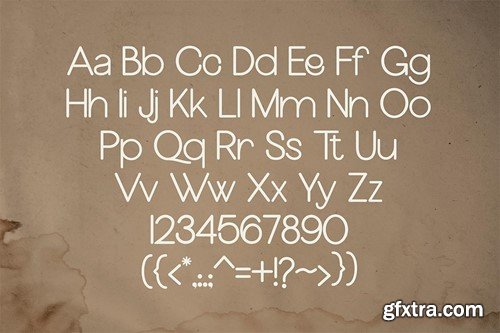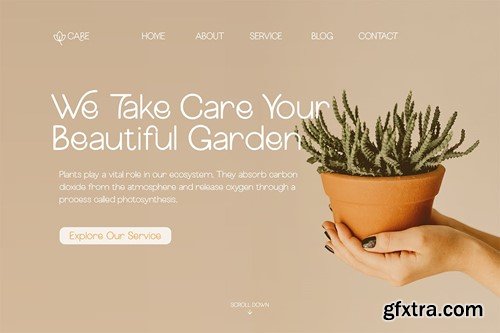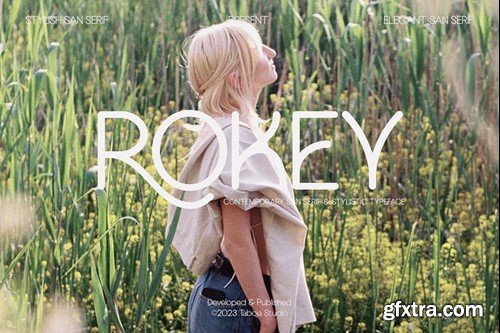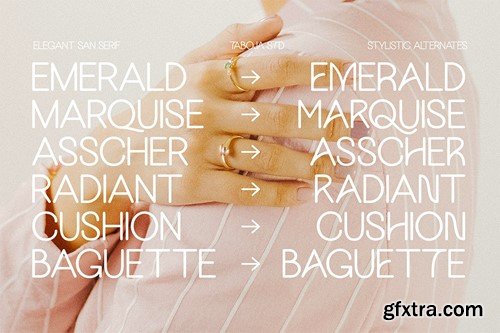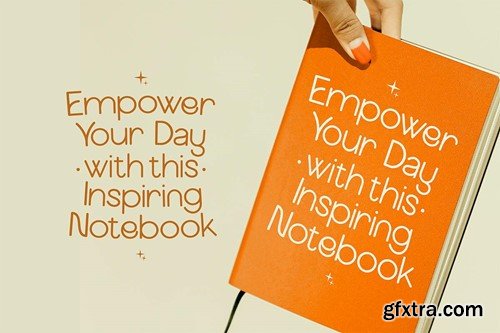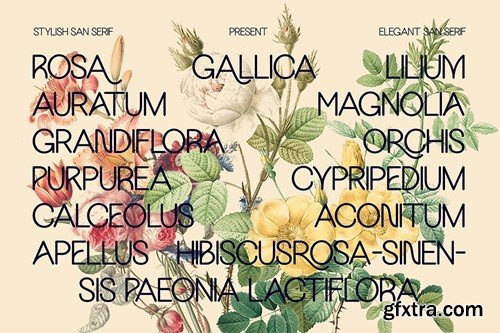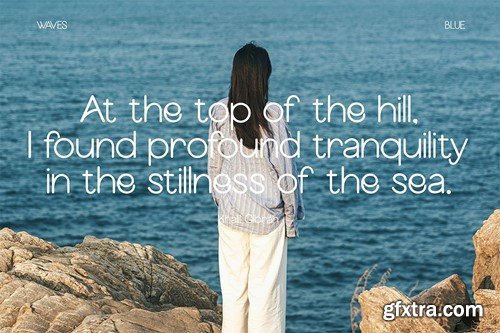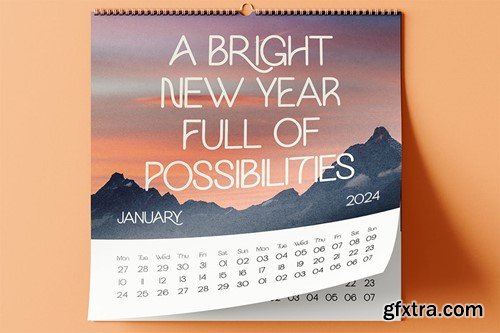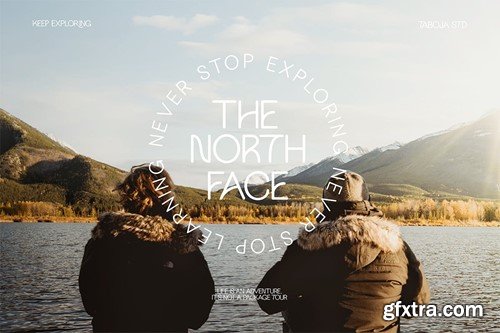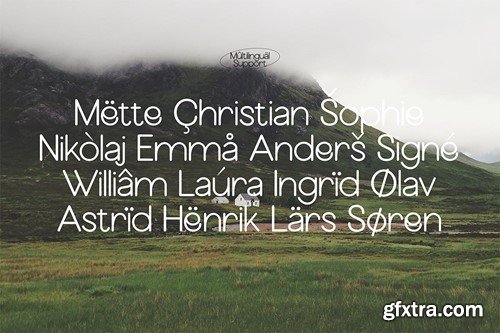
罗凯 - 美与 versatility 字型 NQ3PN38
Rokey - Beauty and Versatility Typeface NQ3PN38
Rokey - Beauty and Versatility Typeface
Introducing Rokey Sans Serif Font, a harmonious blend of beauty and versatility. This typeface is thoughtfully designed with exquisite ligatures and graceful alternates, elevating your designs to new levels of sophistication.
The rounded contours of each letter form a perfectly balanced aesthetic, adding a touch of modernity and friendliness to your projects. Ideal for a wide range of design applications, this font seamlessly integrates into various contexts, from branding and editorial design to web interfaces.
Embrace the versatility and elegance of our Sans Serif Font with beautiful ligatures, graceful alternates, and a well-balanced rounded shape. It's the perfect choice for expansive design needs, providing you with the tools to make a lasting impression across a spectrum of creative projects.
Rokey Sans Serif Font Features:
• Regular
• Uppercase And Lowercase
• Alternates And Ligatures
• Numerals & Punctuation
• Accented characters
• Multilingual Support